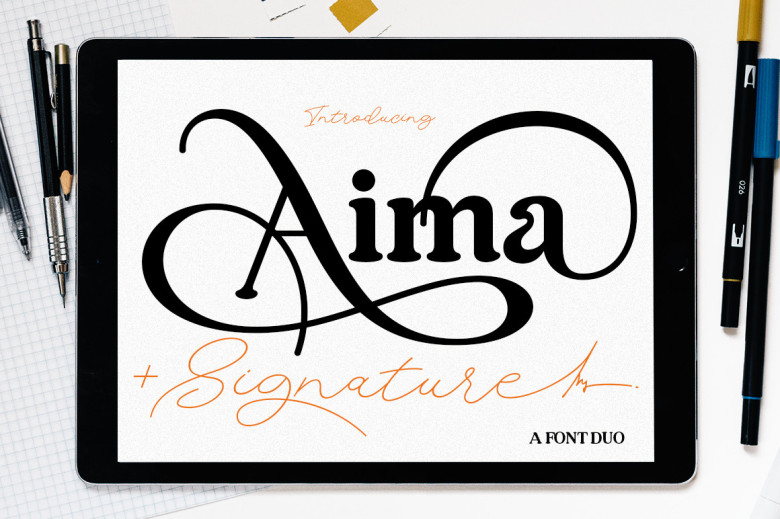
Aima Font Duo
We are pleased to introduce Aima Font Duo, a charming signature font which exudes energy and relaxation through its playful basic. Additionally, Aima Display allows for effortless mixing and customisation to suit your creative endeavors – perfect for logos, branding materials such as wedding stationery and greeting cards, quotes in greeting cards, quotations for greeting cards etc.